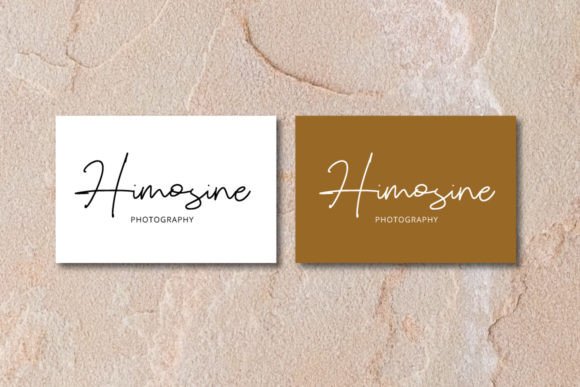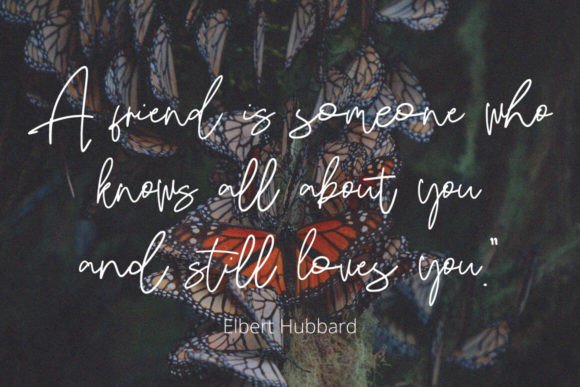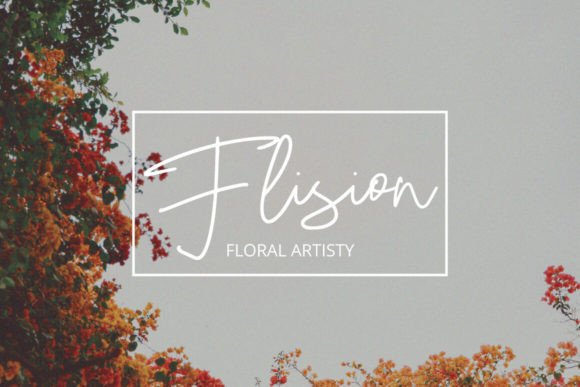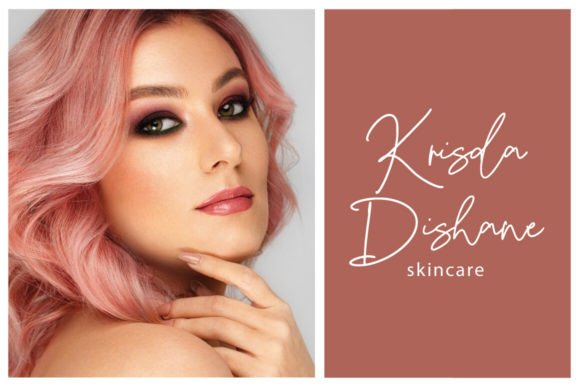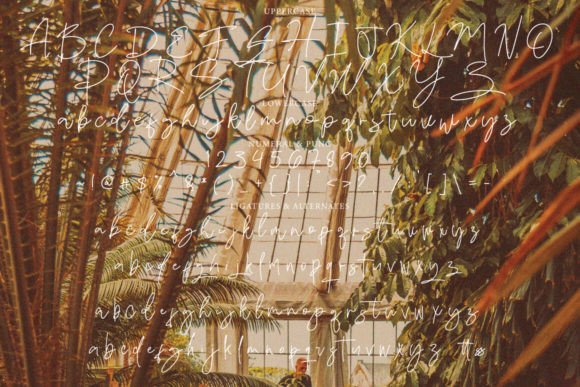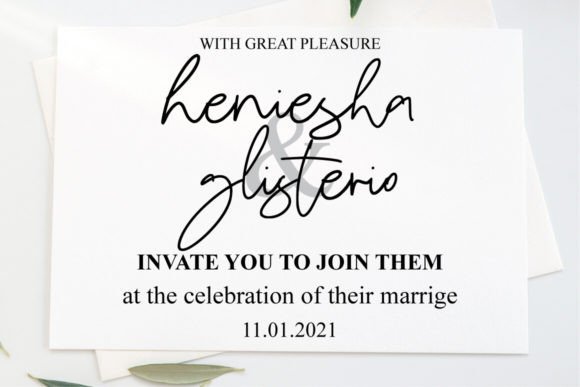
Introducing Gemiga Font: A Handmade Signature Style Masterpiece
Are you a designer or crafter looking for a unique and elegant font to elevate your creative projects? Look no further than Gemiga Font, a stunning handmade signature style font that is sure to impress. With its decorative characters, dancing baseline, and extensive range of glyphs, Gemiga Font is the perfect choice for a variety of applications, from invitations and greeting cards to branding materials, business cards, quotes, posters, and more.
A Beautifully Crafted Font with Endless Possibilities
Gemiga Font boasts a beautiful, hand-crafted design that exudes elegance and sophistication. Its signature style is characterized by decorative characters that add a touch of whimsy and flair to any project. The font’s dancing baseline adds a playful, organic feel that is sure to capture the attention of your audience. With over 300 glyphs at your disposal, you’ll have endless possibilities for creative expression.
Advanced Typography Features
Gemiga Font is more than just a beautiful font – it’s also a highly versatile one. With a range of advanced typography features, you can easily customize the font to suit your needs. The font comes with several Open Type features, including Swash, Stylistic Sets, Stylistic Alternates, and Ligature. These features can be accessed using Open Type savvy programs such as Adobe Illustrator, Adobe InDesign, Adobe Photoshop, Corel Draw X version, and Microsoft Word.
PUA Unicode: Easy Access to Alternate Characters
One of the standout features of Gemiga Font is its PUA (Private Use Area) unicode encoding. This means that all the alternate characters can be easily accessed in full by crafters and designers, without the need for complicated software or technical expertise. With PUA unicode, you can simply copy and paste the characters you need into your project, making it easy to add a touch of elegance and sophistication.
Gemiga Font is the perfect choice for designers and crafters who want to add a touch of elegance and sophistication to their projects. Whether you’re creating invitations, greeting cards, branding materials, or social media graphics, this font is sure to impress. With its extensive range of glyphs and advanced typography features, you’ll have everything you need to create stunning, professional-quality designs.
Key Features of Gemiga Font
- Handmade signature style font with decorative characters and dancing baseline
- Over 300 glyphs, including alternate characters and ligatures
- Advanced typography features, including Swash, Stylistic Sets, Stylistic Alternates, and Ligature
- PUA unicode encoding for easy access to alternate characters
Get Creative with Gemiga Font
In conclusion, Gemiga Font is a truly exceptional font that is sure to delight designers and crafters alike. With its beautiful, handmade signature style, extensive range of glyphs, and advanced typography features, this font is the perfect choice for a variety of creative projects. Whether you’re a seasoned pro or just starting out, Gemiga Font is sure to become a go-to font in your collection.